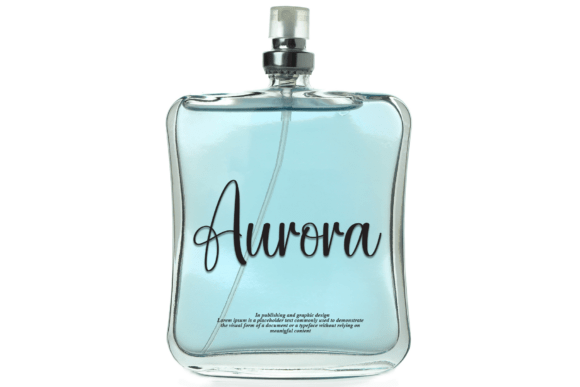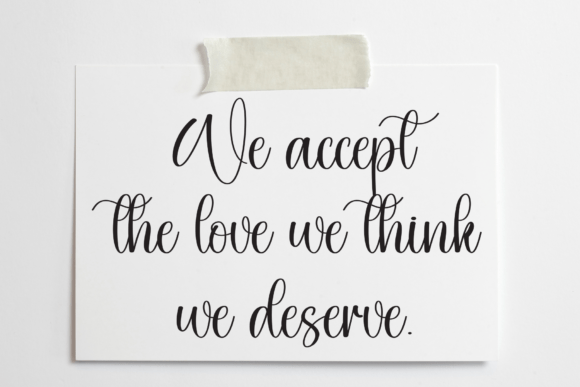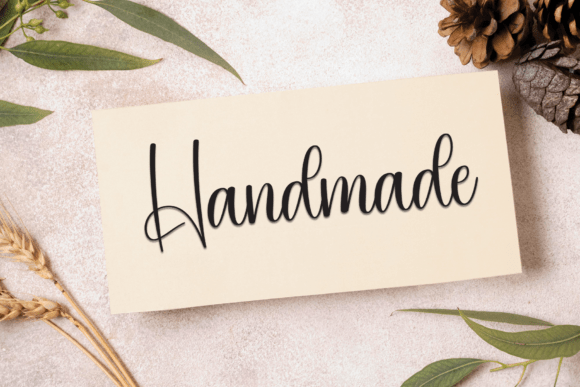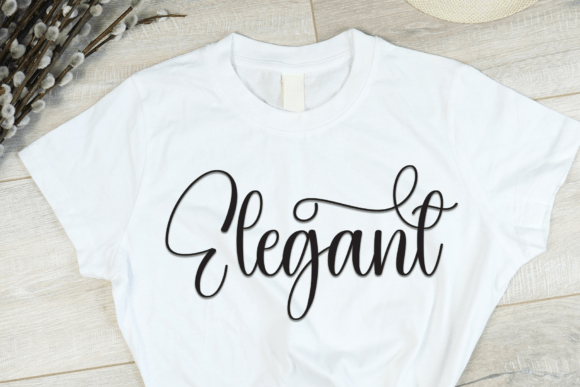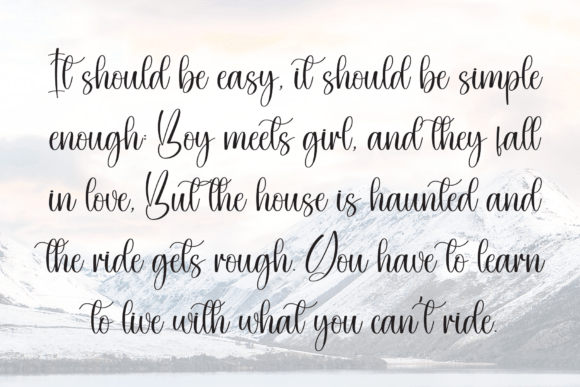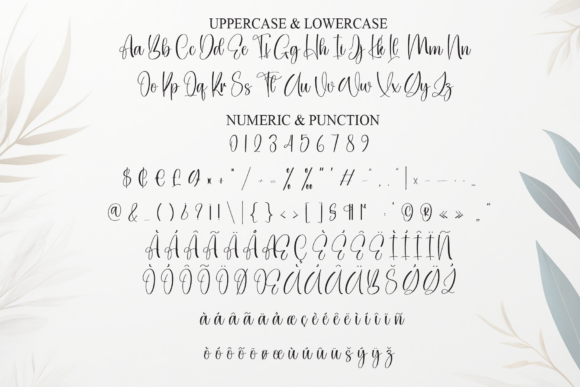
Introducing Bundle Font: Elevate Your Designs with Elegance and Sophistication
In the world of typography, a well-crafted font can make all the difference in elevating your designs from ordinary to extraordinary. If you’re a designer, crafty enthusiast, or business owner looking to add a touch of luxury and sophistication to your branding, look no further than Bundle Font. This exquisite script font combines flowing curves with refined style, offering a modern yet timeless handwritten feel that’s perfect for a wide range of applications.
The Characteristics of Bundle Font
Bundle Font boasts a range of characteristics that set it apart from other script fonts on the market. Its elegant, cursive strokes are designed to evoke a sense of refinement and poise, making it an ideal choice for high-end branding, wedding stationery, product packaging, fashion labels, quotes, and social media graphics. The font’s flowing swashes and smooth strokes create a polished aesthetic that’s sure to impress, while its modern and timeless feel ensures it will remain relevant for years to come.
Perfect for a Range of Applications
One of the key benefits of Bundle Font is its versatility. This beautiful script font can be used across a wide range of applications, including:
- High-end branding: Create a luxurious and sophisticated brand identity with Bundle Font, perfect for high-end fashion, beauty, or lifestyle brands.
- Wedding stationery: Add a touch of elegance and romance to your wedding invitations, save-the-dates, and other stationery with this beautiful script font.
- Product packaging: Elevate your product packaging with a sophisticated and eye-catching design that showcases your brand’s personality.
- Fashion labels: Create stunning fashion labels that exude style and sophistication, perfect for clothing, accessories, or beauty products.
- Quotes and social media graphics: Add a touch of elegance and inspiration to your quotes and social media graphics, perfect for bloggers, influencers, or businesses looking to engage with their audience.
Why Choose Bundle Font?
So why choose Bundle Font over other script fonts on the market? Here are just a few reasons:
- Sophistication and charm: Bundle Font is designed to elevate your designs with sophistication and charm, making it perfect for those who want to make a stylish, heartfelt impression.
- Modern and timeless: This beautiful script font boasts a modern yet timeless feel that’s sure to remain relevant for years to come.
- Versatile: Bundle Font can be used across a wide range of applications, from high-end branding to social media graphics.
In conclusion, Bundle Font is a stunning script font that’s perfect for designers, crafty enthusiasts, and businesses looking to add a touch of luxury and sophistication to their branding. With its elegant, cursive strokes, flowing swashes, and smooth strokes, this beautiful font is sure to elevate your designs and make a stylish, heartfelt impression. So why wait? Download Bundle Font today and start creating stunning designs that exude elegance and sophistication.